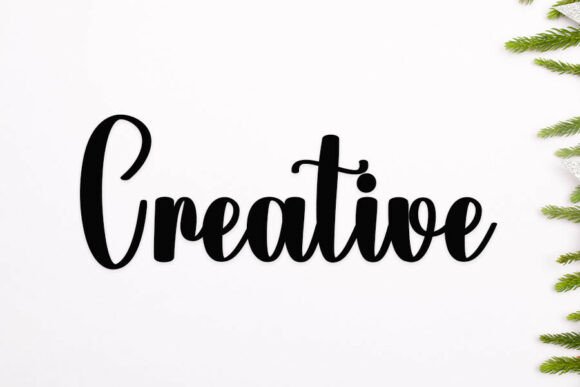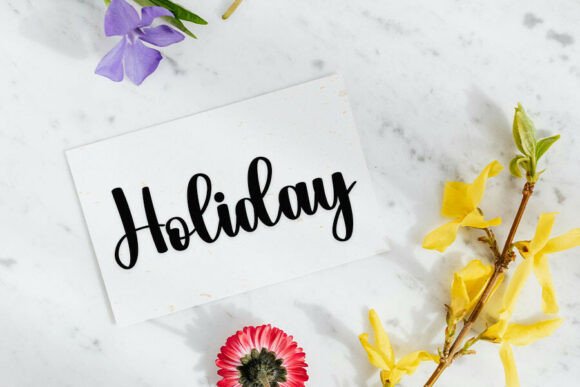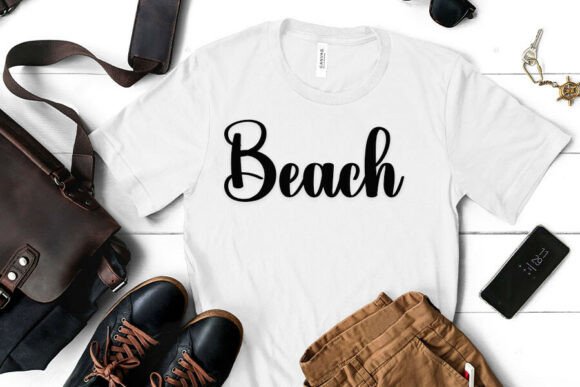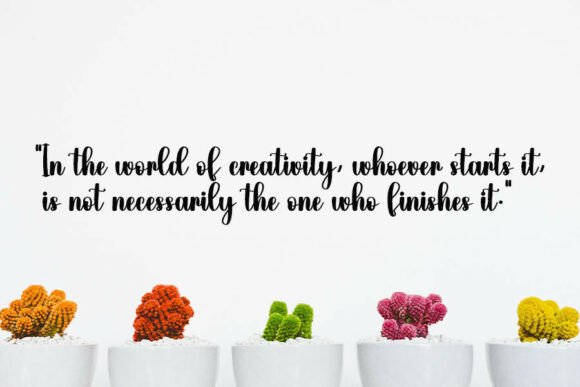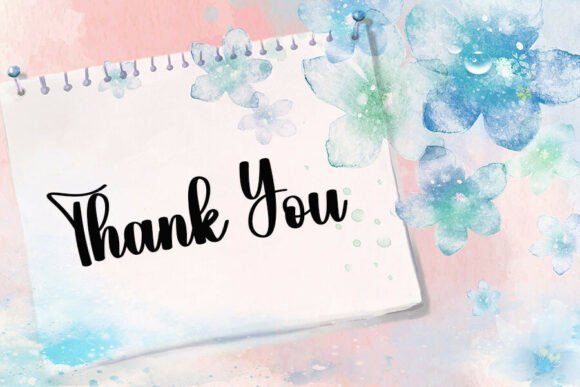
Unleashing Your Creativity with Darling Font
Have you ever found yourself scribbling down ideas in a coffee shop, surrounded by the hum of creativity? The scratch of your pen on paper, the dance of words on the page, and the thrill of bringing your vision to life – it’s a moment every designer knows and loves. This is where the magic happens, and your imagination knows no bounds.
Enter the Darling Font, a delicate handwritten font designed to bring a touch of elegance and whimsy to your designs. Whether you’re crafting letters, invitations, or even food product labels, Darling Font is the perfect companion to help you express your unique style. As a designer, you’ll appreciate the flexibility and versatility of this font, which can be used to add a personal touch to any project.
Darling Font Key Features
- Font Family: Darling Font is a modern script font, designed to evoke a sense of elegance and sophistication.
- Character Count: The font includes over 700 characters, including uppercase and lowercase letters, numerals, punctuation marks, and special characters.
- Unique Characteristics: The font features connected script letters, swashes, and flourishes, giving it a distinctive and elegant look.
Darling Font Review
I recently had the chance to work with the Darling Font, and I must say it’s been a delightful experience. The font’s elegant and whimsical feel is perfect for projects that need a touch of romance and sophistication. ✨ The high-quality vectors make it incredibly versatile and easy to use in various design applications.
Some of my favorite features of the Darling Font include:
- Unique letterforms: Each letter is carefully crafted to provide a sense of character and personality.
- High-resolution images: The font’s images are crisp and clear, even at large sizes.
- Excellent legibility: The font is easy to read, even in smaller sizes.
However, I do have a few concerns about the Darling Font:
- Limited font weights: The font only comes in a few weights, which can limit its versatility in certain projects. ⚠️
- No italic or oblique versions: If you need to create italic or oblique text, you’ll need to use a separate font or create custom styles.
Overall, the Darling Font is a lovely addition to any designer’s toolkit. While it has some limitations, its unique charm and high-quality design make it well worth considering for your next project.
To get the most out of Darling Font, use it for:
– Headings and titles to create a beautiful and elegant look.
– Quotes and captions to add a touch of sophistication.
– Branding and logo design to create a unique and memorable identity.
Alternatives to Darling Font
Lato is a sans-serif font that works well for body text and headings. It’s a great choice for modern and clean designs. When to use: For websites, apps, and digital products that require a contemporary look.
Comparison to Darling Font: Lato is more minimalist and geometric, while Darling Font has a more elegant and cursive feel. Lato is ideal for projects that require a clean and neutral background, while Darling Font is better suited for projects that need a touch of sophistication and elegance.
Merriweather is a classic serif font that’s perfect for print and digital designs that require a traditional feel. When to use: For books, magazines, and other publications that need a timeless and sophisticated look.
Comparison to Darling Font: Merriweather is more formal and traditional, while Darling Font is more playful and elegant. Merriweather is ideal for projects that require a sense of history and culture, while Darling Font is better suited for projects that need a touch of whimsy and charm.
Are there any font pairing recommendations for Darling Font?
Yes, we recommend pairing Darling Font with clean sans-serif fonts like Open Sans or Lato for a modern and elegant look. You can also experiment with serif fonts like Merriweather or Georgia for a more classic feel. Experiment with different font combinations to find the perfect pairing for your design.